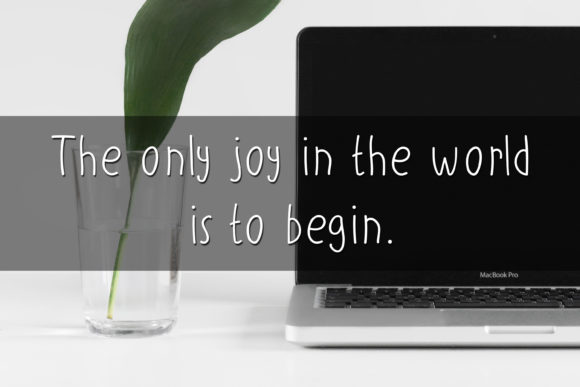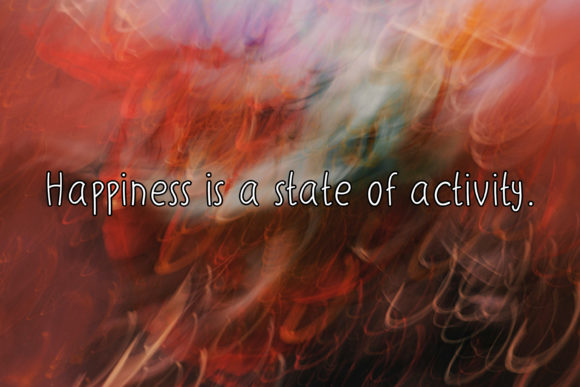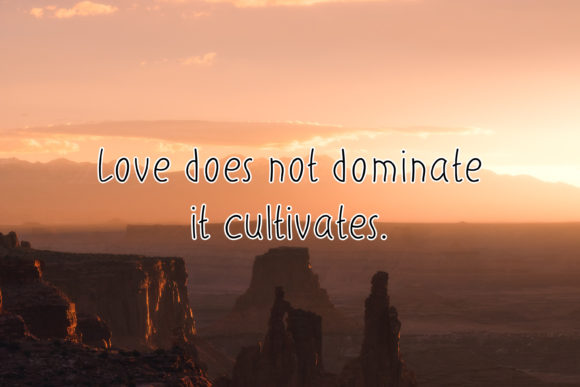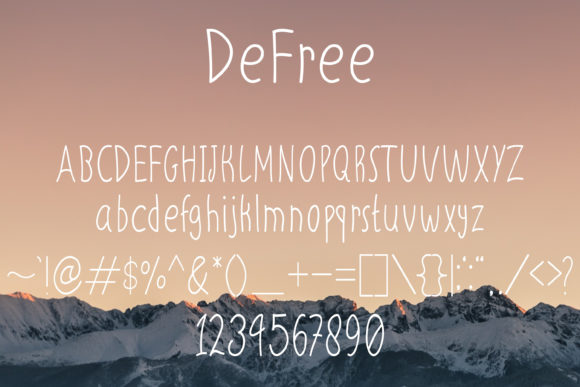
DeFree Font
About DeFree Font
DeFree is a cute and simple lettered handwritten font that can be used for all chalkboard quotes or teaching material! Its authentic look will add a personal and realistic feel to your designs.